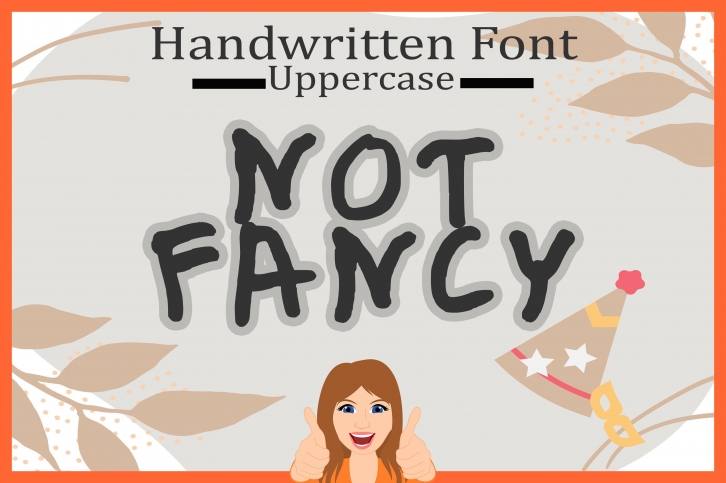
Notfancy is a cute and quirky handwritten font. No matter the topic, this font will be an incredible asset to your fonts’ library, as it has the potential to elevate any creation.Â